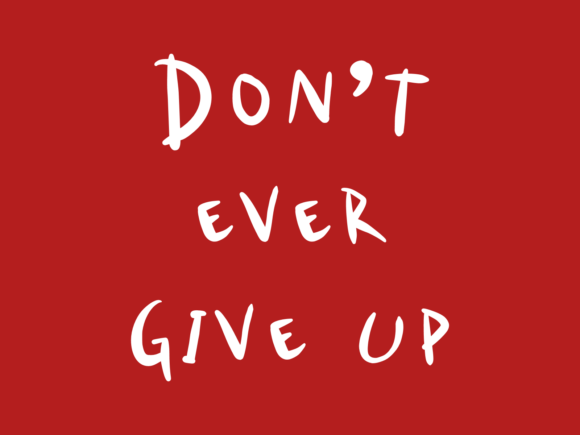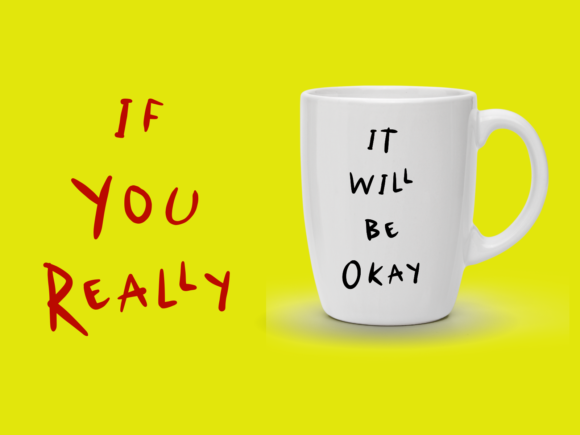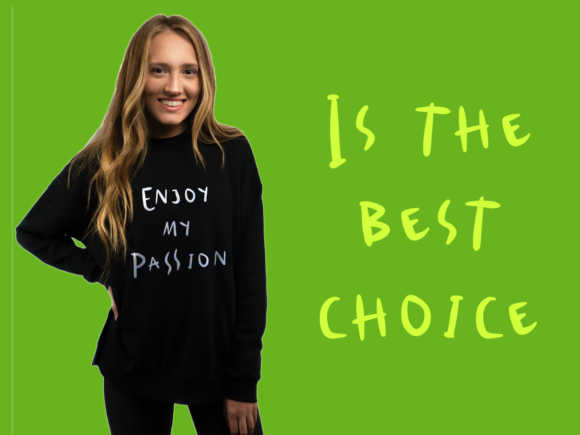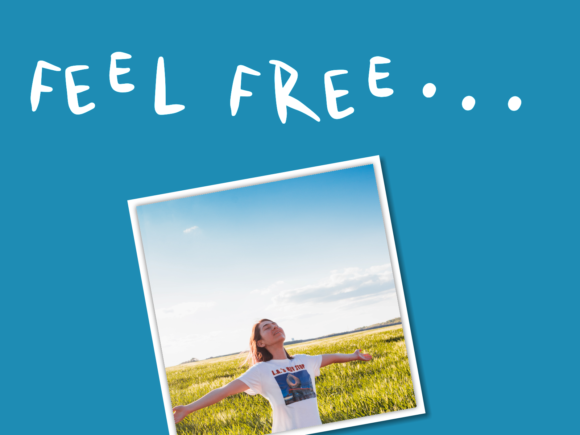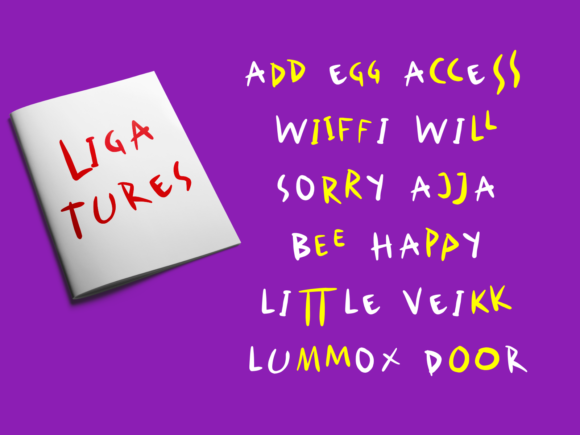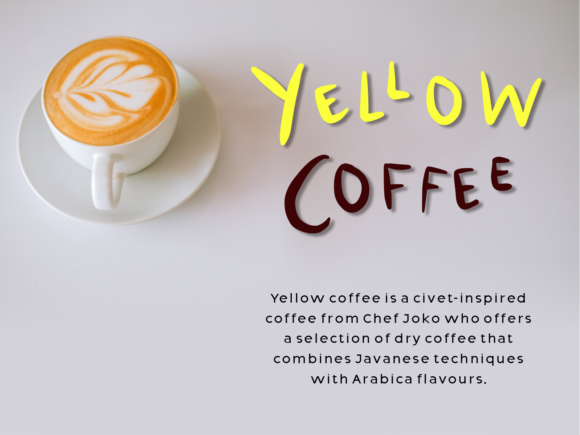
Introduction to Hello Mister Font
Do you remember the feeling of excitement when you first saw your creative project come to life? The hours, days, and nights spent pouring your heart into it, and then suddenly, you see it all take shape on the screen. That’s the moment when the hard work pays off, and the design truly shines. But, have you ever wondered what makes a design truly stand out? For many designers, the answer lies in the perfect font.
Enter the Hello Mister Font, a cool and informal handwritten font that’s sure to elevate any creative project. With its high-quality design and transparent background, this font is a valuable asset for designers looking to add a personal touch to their work. Whether you’re working on a personal project or a commercial one, the Hello Mister Font is a must-have in your design resource library.
Key Features of Hello Mister Font
- High-quality design with a transparent background, perfect for creative projects.
- Includes 8 unique styles and 12 different weights, offering a wide range of creative possibilities.
- Designed by a professional font creator, guaranteeing a high level of quality and attention to detail.
Honest Review: Hello Mister Font
I recently had the chance to try out the Hello Mister Font and I must say, it’s a great addition to my design resource collection. This font is perfect for any creative project that needs a unique touch.
What works well: ✨ The font is incredibly high quality and has a very distinctive look that sets it apart from other fonts. I particularly love the transparent background which makes it easy to layer with other design elements. The font is also free to download, which is a major plus in my book.
Here are some of the key features I love about the Hello Mister Font:
- Unique and high-quality design
However, there are a few limitations to be aware of: ⚠️ The font only comes in a limited number of weights, which might be a problem for designers who need a lot of flexibility. Additionally, the font is not compatible with all operating systems, which can be a bit of a hassle.
Overall, I’m really impressed with the Hello Mister Font. It’s a great design resource that’s perfect for any creative project. While it has a few limitations, the benefits far outweigh the drawbacks in my opinion.
Hello Mister Font
Tips for Getting the Most Out of Hello Mister Font
To get the most out of Hello Mister Font, experiment with different font sizes, colors, and styles to find the perfect look for your project. You can also use the font in combination with other design elements to create a unique and eye-catching design.
Hello Mister Font is perfect for any creative project, including logos, business cards, posters, and social media graphics. Its transparent background makes it easy to use in combination with other design elements, making it a valuable resource for designers and non-designers alike.
Alternatives to Hello Mister Font
Montserrat is a high-quality sans-serif font perfect for creative projects that require a modern and sleek design. It features a transparent background, making it ideal for backgrounds and overlays. Montserrat is a free download and can be used for both personal and commercial projects. When to use: For modern, urban, and minimalist designs.
Montserrat compares to Hello Mister Font by offering a more versatile and modern design, while Hello Mister Font has a more vintage and distressed look. Montserrat is a better choice for projects that require a clean and minimalistic design.